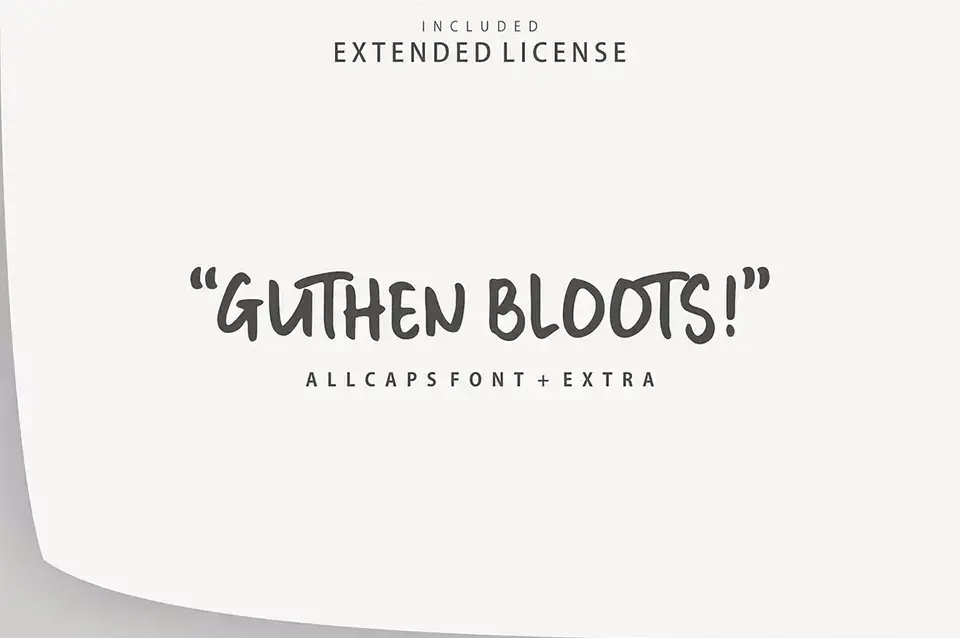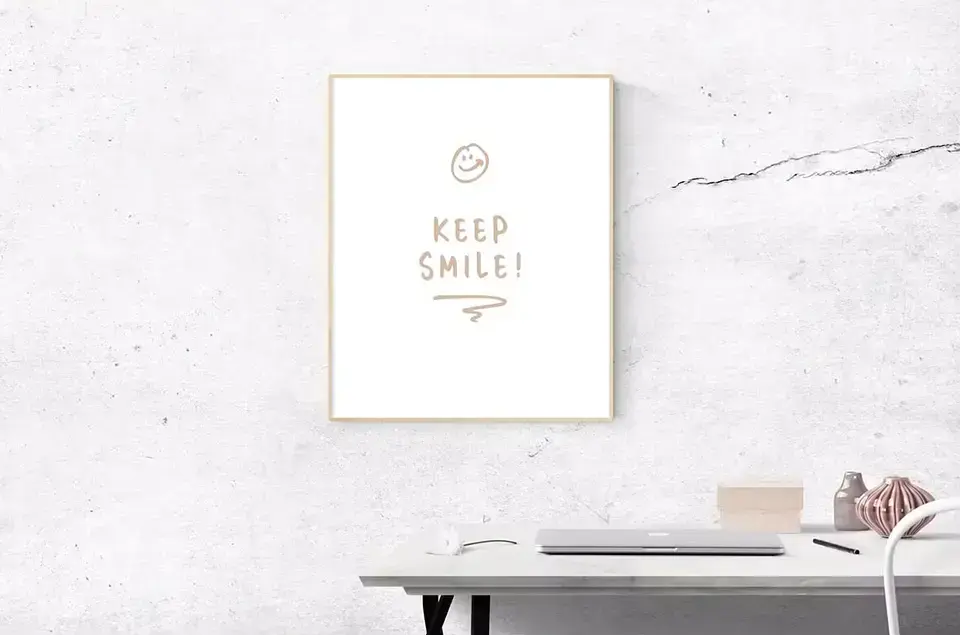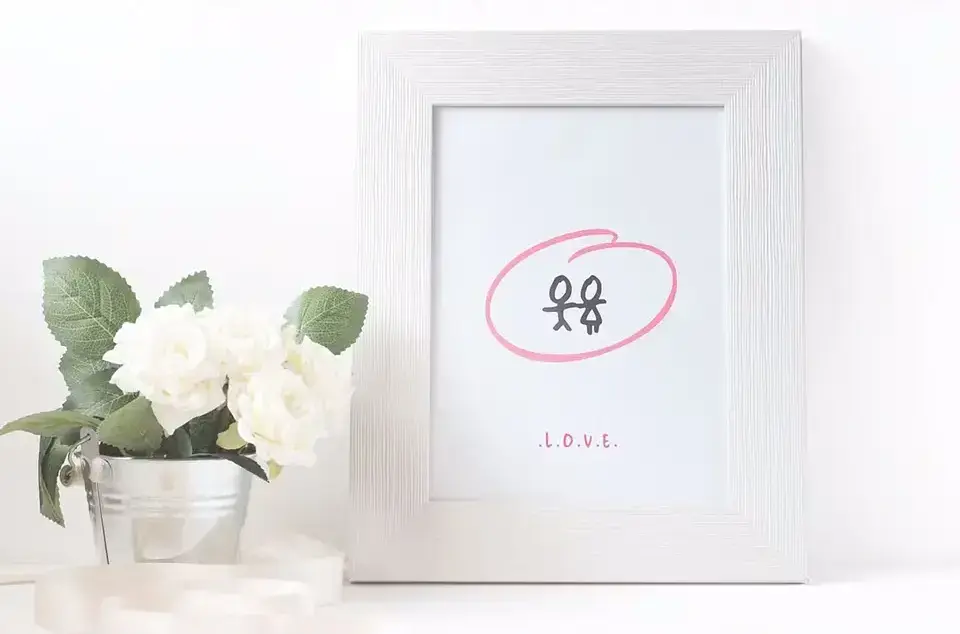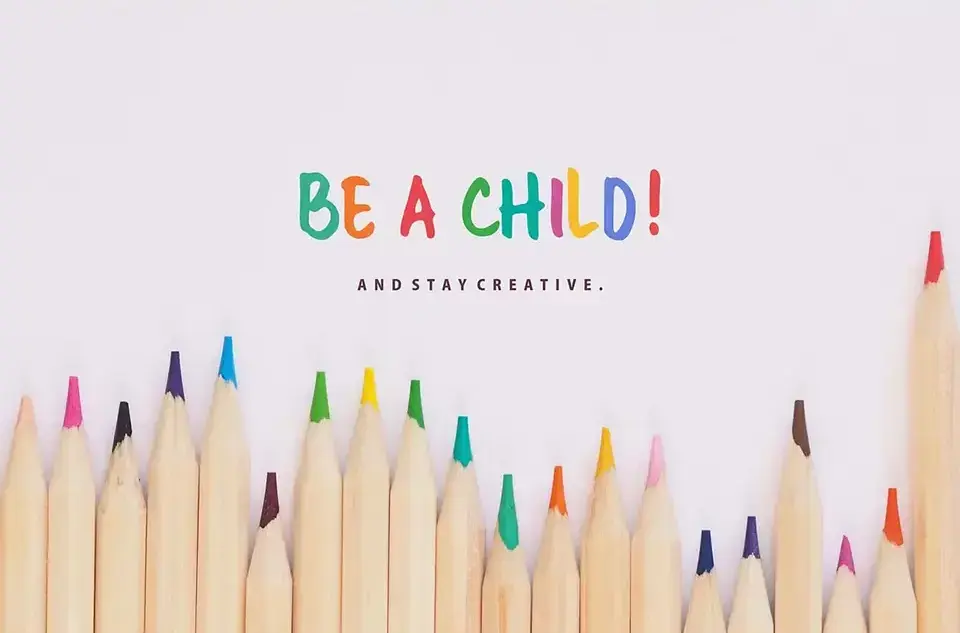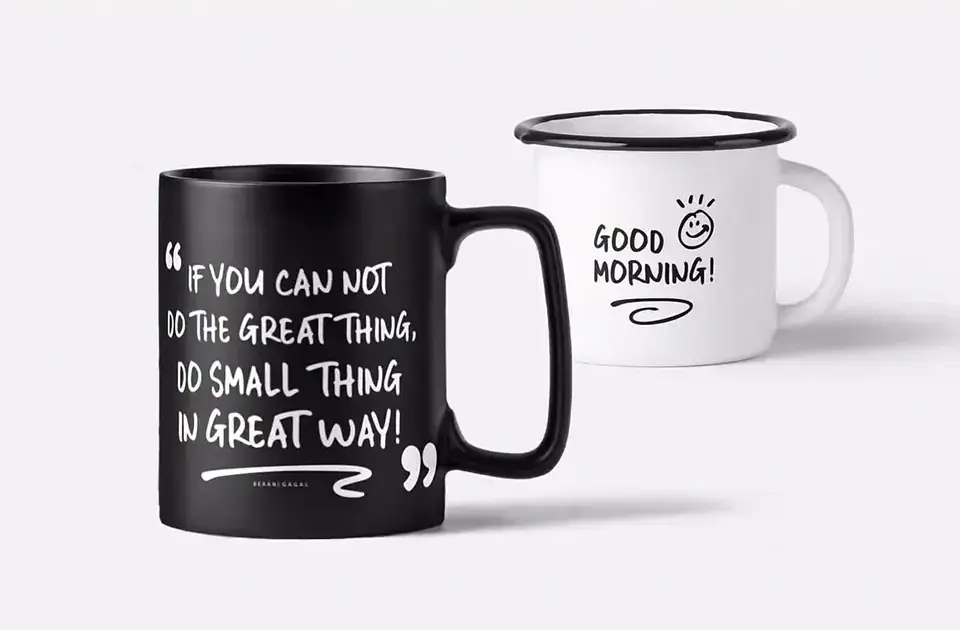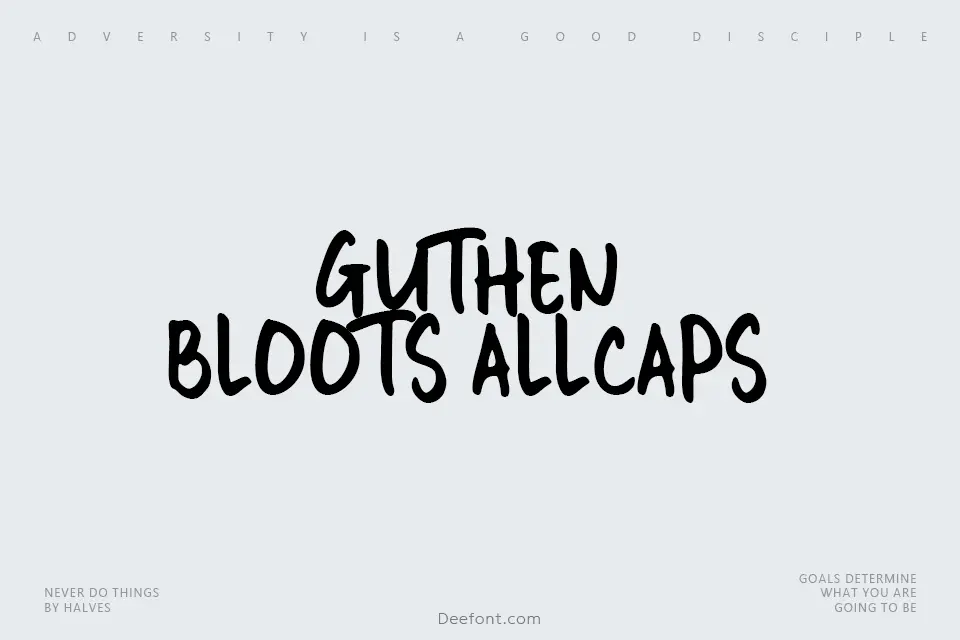
Guthen Bloots Allcaps Font
Guthen Bloots Allcaps Font is a bold handwritten marker display with rough, textured strokes and energetic all caps letters that feel hand-painted. It brings an urban, handcrafted edge to posters, movie titles, horror graphics, album covers, packaging, YouTube thumbnails and standout social media branding.